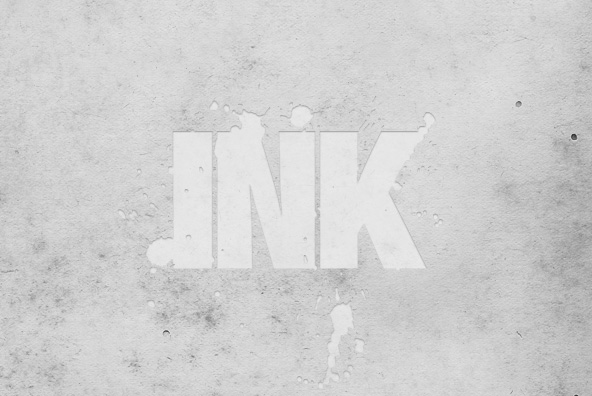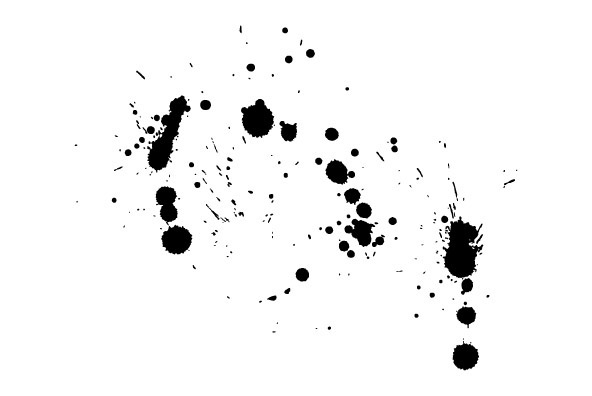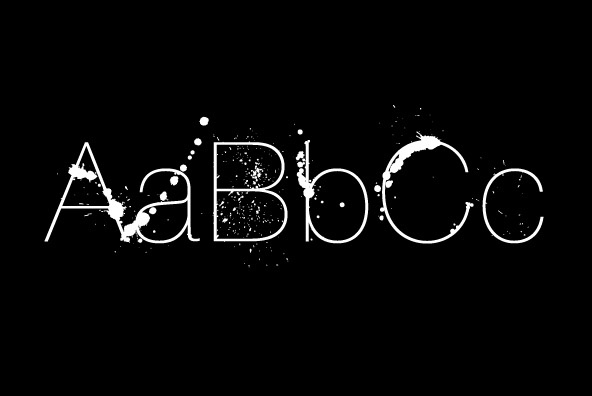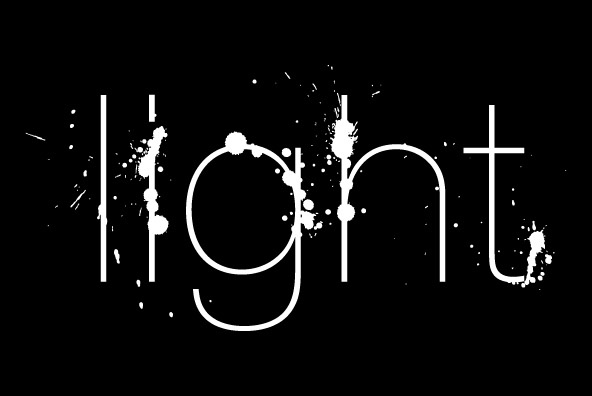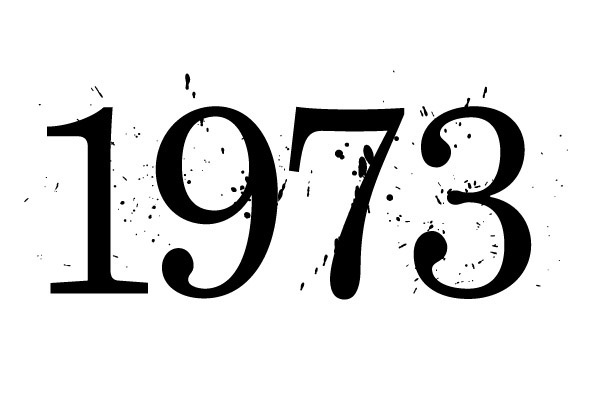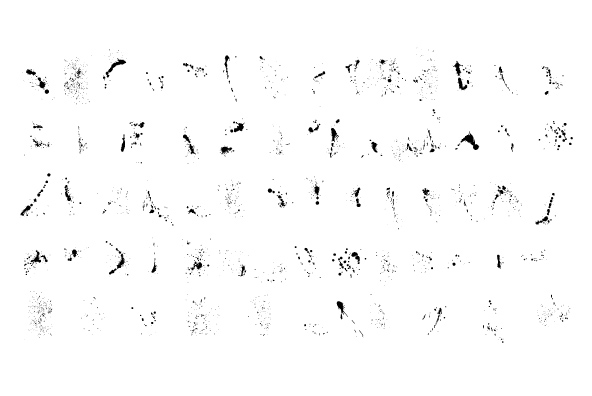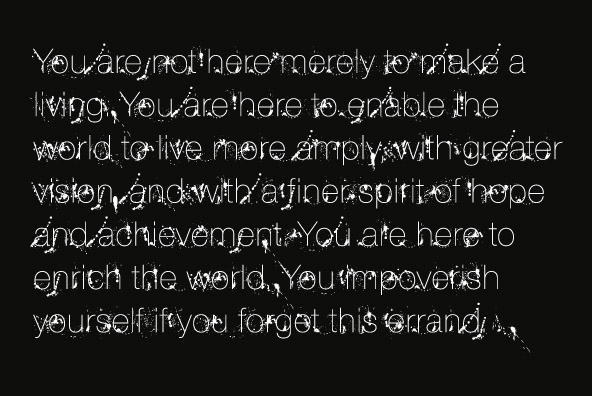
YWFT Ink
Font Family by YouWorkForThem
KA-SPLAT! YWFT Ink is a dingbat font containing 69 glyphs of ink splotches. Originally designed in 2008 for an EA Games custom type project, we have now released this for public use. YWFT Ink works best to dirty up your type setting, but uses a light approach which maintains your original text's legibility. A typical use would be to set your headline/content text first, then duplicate that text object and change its font setting to YWFT Ink. Then simply adjust the YWFT Ink object to lineup on top of your type as you wish. The resulting effect will be a more vintage, rough and distressed type setting. YWFT Ink was originally designed in 2008 by YWFT, then publicly released in 2010.